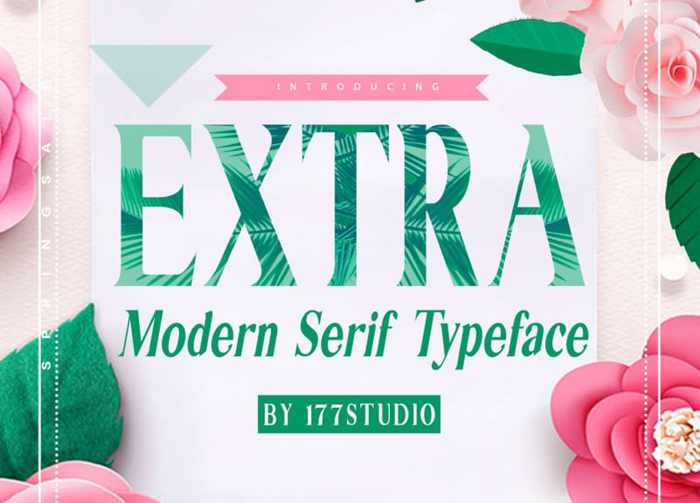
EXTRA Serif Font
Extra Serif Font is a modern serif typeface whose design refers us to the style of transitional serifs.
A little bit retro and a bit modern, Extra Serif Font is great for logos, editorial or web design. The unique sharp serifs mixed with thin strokes give off a bold mid century architectural vibe.
This modern serif typeface features serifs. Perfect for gorgeous logos & titles, It’s will pair beautifully with many fonts and work well with whatever project you’re working on.